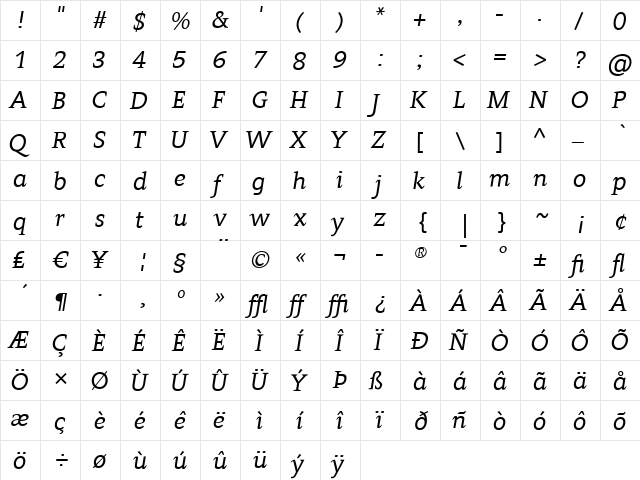
Contra Italic
| Foundry | Fredrick Nader |
Design Context for Contra Typeface
Contra is a composed and adaptable typeface that performs quietly and consistently across a wide range of design contexts. The slanted form adds forward momentum and visual energy.
Pro Tip: Use Contra for emphasis, pull quotes, and subheadings where its slanted energy can add rhythm to the layout.